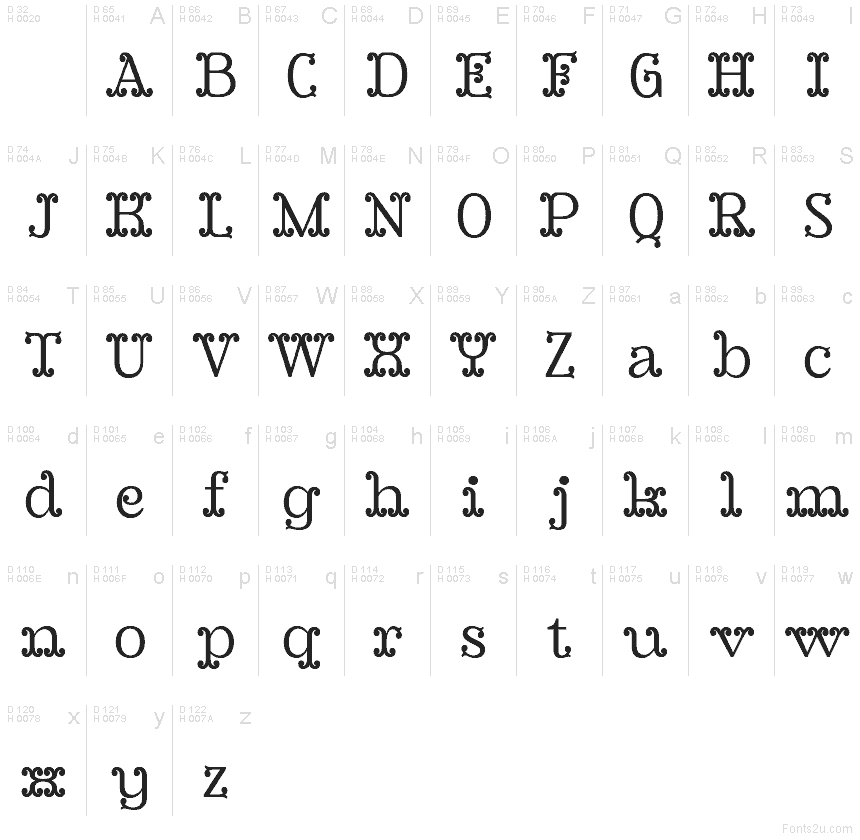
CS Monroe Regular Demo
CS Monroe font by Craft Supply Co. is a decorative display font with a retro style. It is an elaborate ornamental typeface featuring intricate details, decorative curls, and stylized elements. In this vintage-inspired font, these eye-catching additions are easily recognized due to the thick lines and sparse use of thorns which bring simplicity to the texts.